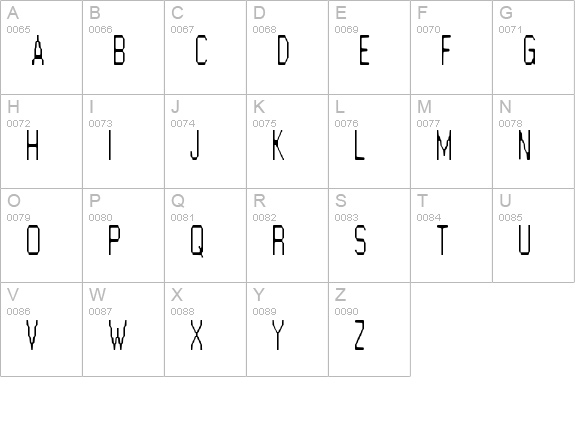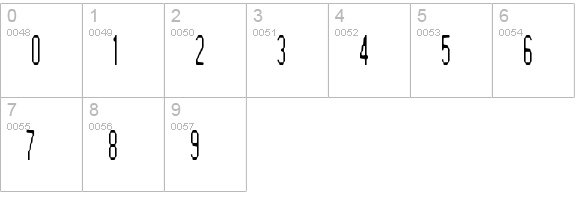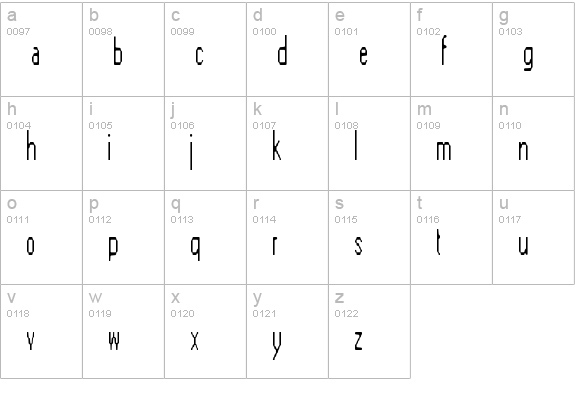
Electric Goat Font Details
Electric Goat font is a unique and modern typeface that combines sleek lines with a playful twist. Its bold and electrifying design makes it perfect for a wide range of projects, from branding to headlines. With its sharp edges and eye-catching appearance, Electric Goat stands out in any design setting. Best of all, Electric Goat font is available for free download at FontsMarket.com. This means you can easily add this stylish font to your collection without having to worry about any additional costs. Whether you're a professional designer or a hobbyist looking to spice up your creations, Electric Goat font is a versatile and exciting choice that won't disappoint. Download it today and give your projects a jolt of energy and creativity!